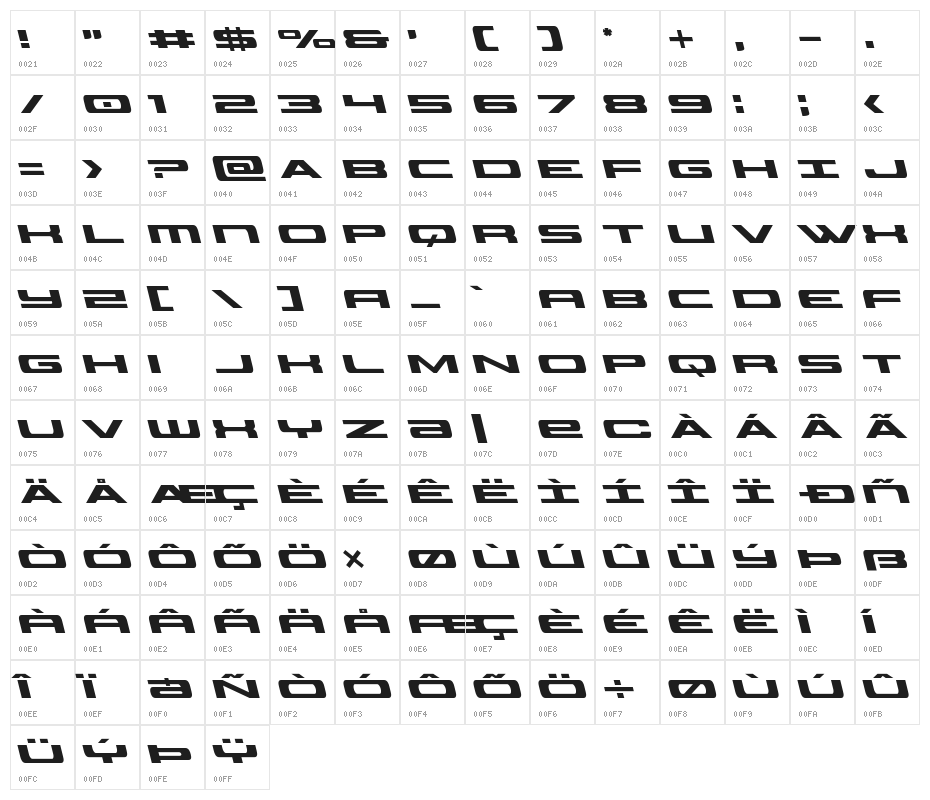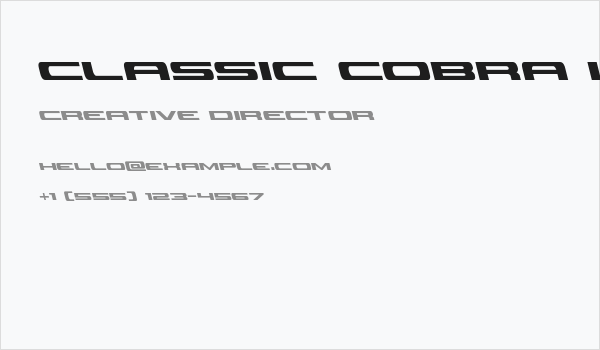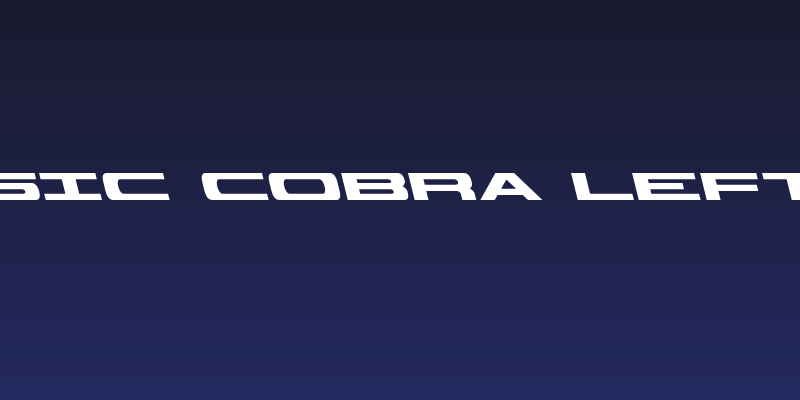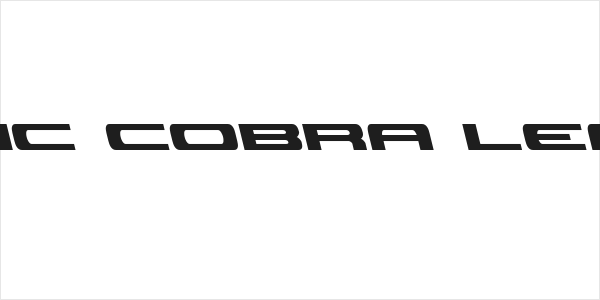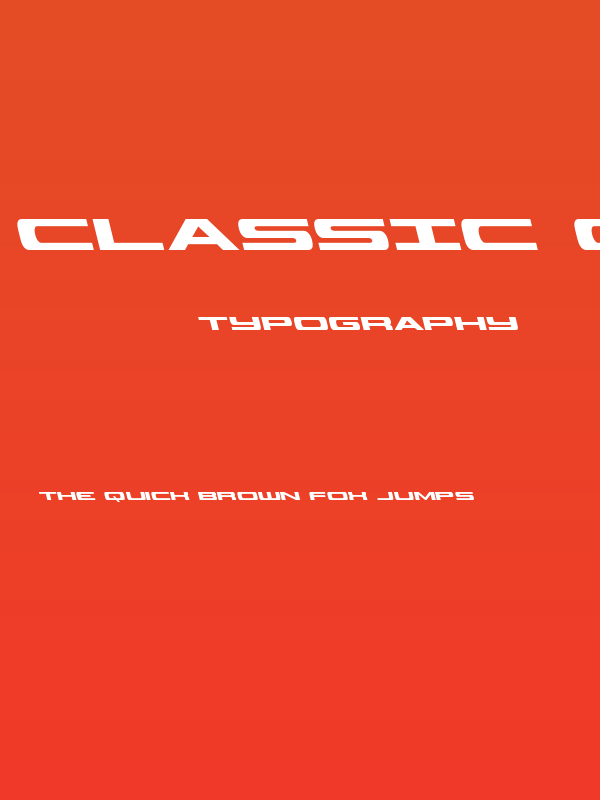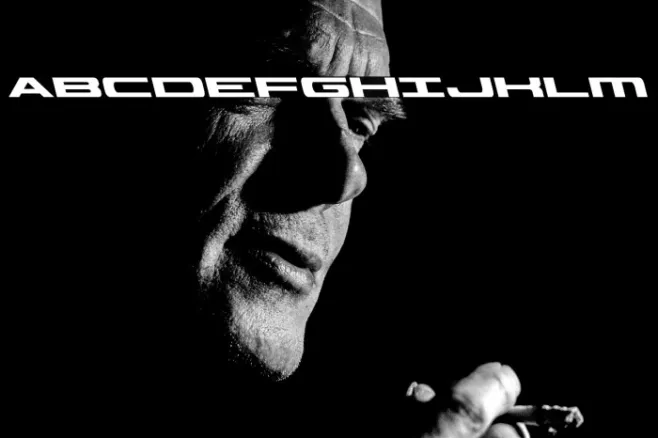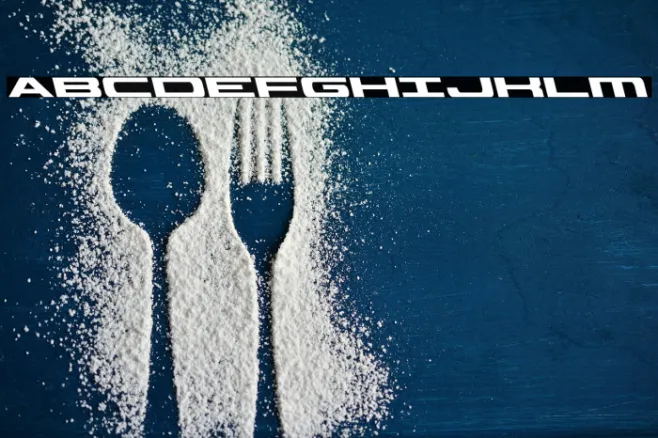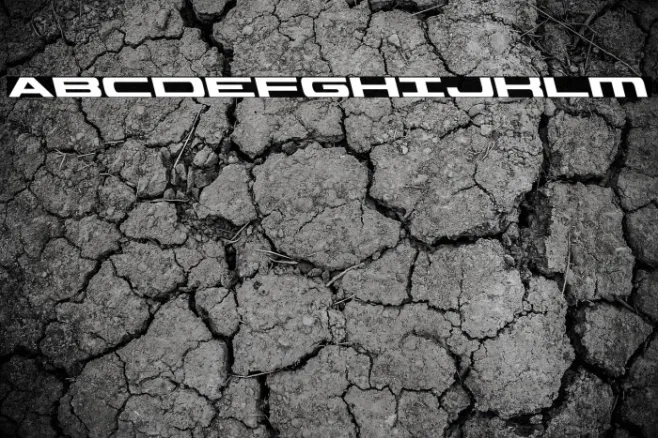
Classic Cobra Leftalic Font
Classic Cobra Leftalic Description
This font features a bold and dynamic style with a futuristic flair. The characters are slightly slanted, giving a sense of motion and speed. The design incorporates sharp angles and clean lines, creating a modern and edgy appearance. The uppercase and lowercase letters maintain a consistent style, with the numerals and special characters complementing the overall aesthetic. The font's unique look makes it suitable for projects that require a strong and impactful visual presence.
| Proposed Projects | Ideal for branding, sports team logos, automotive designs, and sci-fi themed projects. |